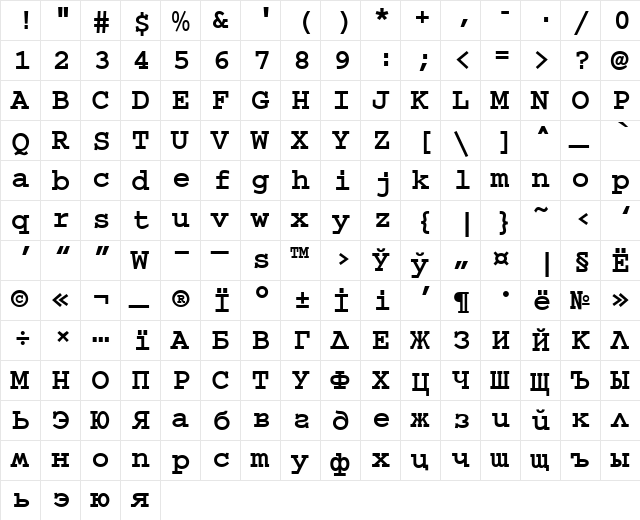
Cougel Bold
Design Context for Cougel Typeface
Cougel offers clean, dependable letterforms without strong stylistic allegiance, making it a practical choice for designers who need flexibility. The heavy weight commands attention and anchors typographic hierarchies.